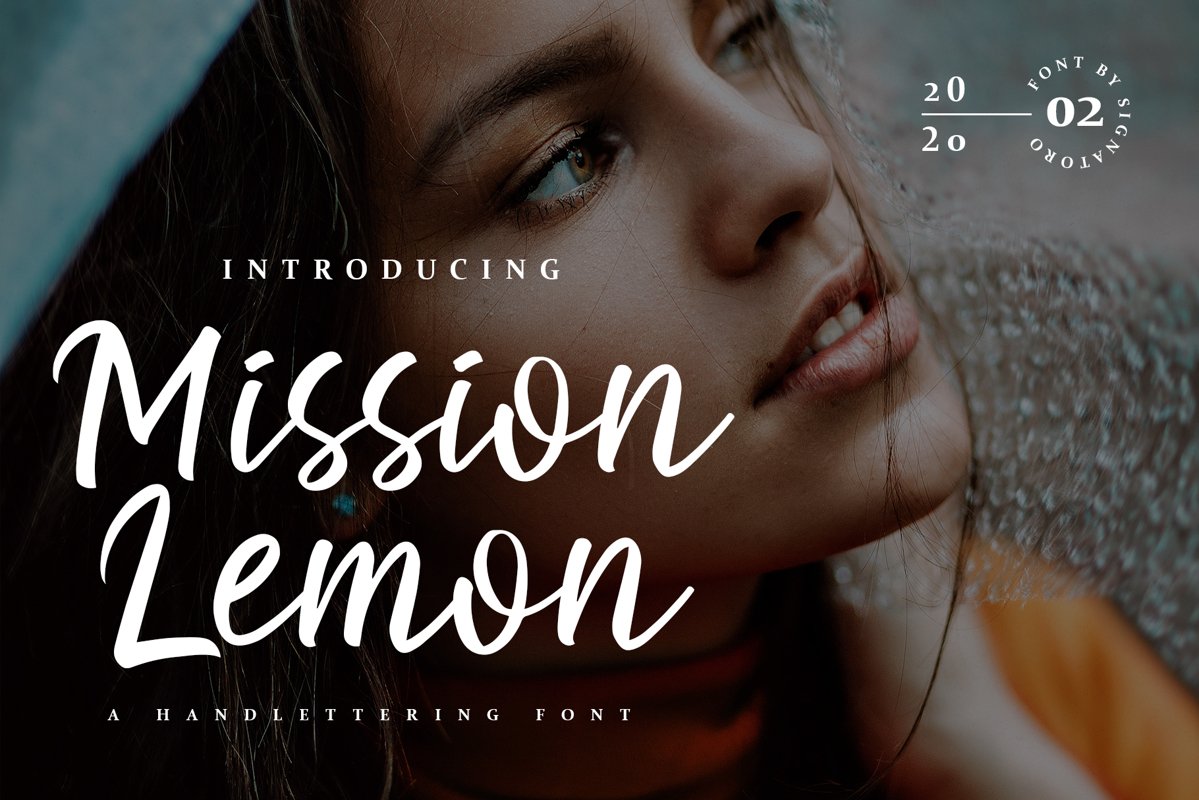
Mission Lemon Handlettering Font
Mission Lemon
Introducing Mission Lemon, simple handwriting style. This font offers a unique look and is very attached to your design in a classic or modern style.
Mission Lemon is the right choice of fonts for your projects in the form of logos & branding, print media, social media posts, wedding invitations, watermarks or works that require hand styles with a distinctive style.